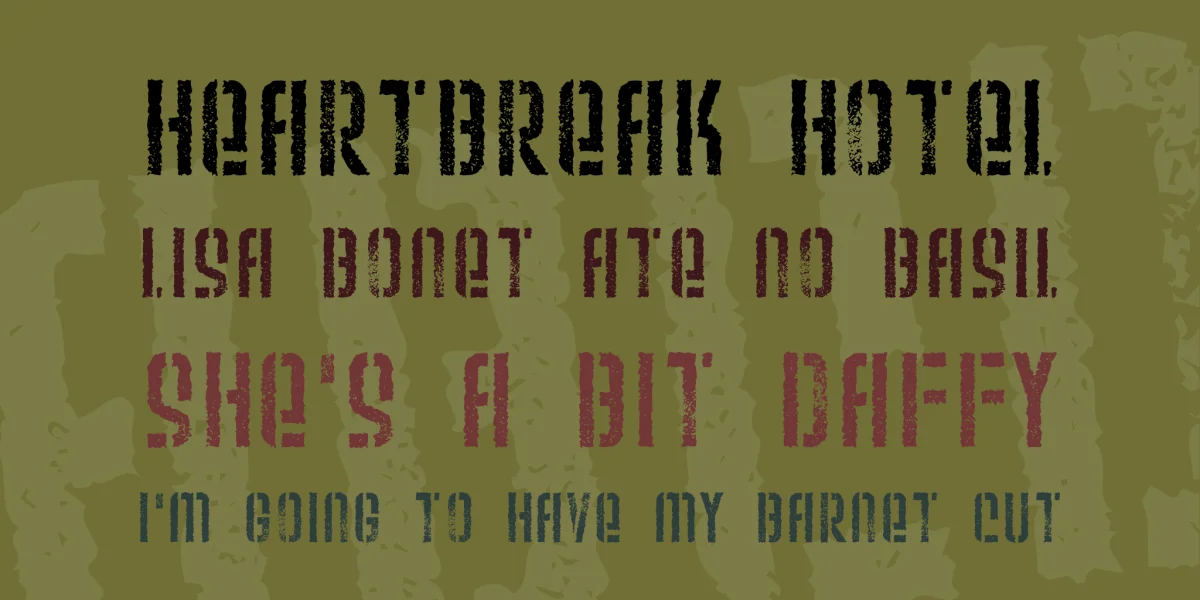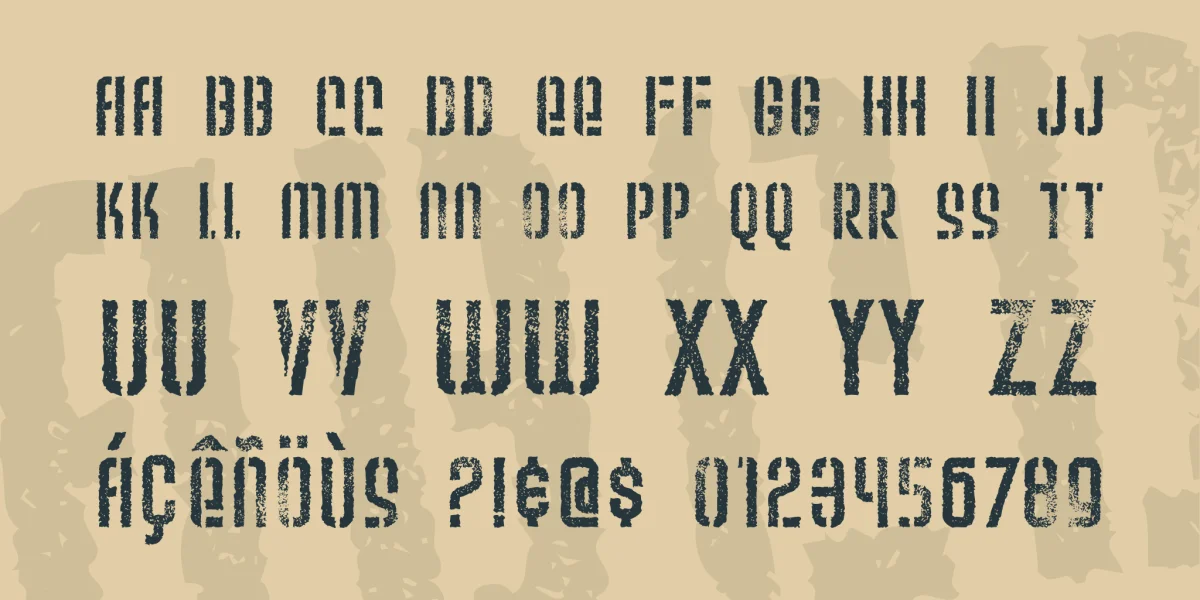
People like typefaces that look like they've been on something forever and just worn down to illegibility. I guess it gives it a little more stability behind the design. One way to do this is to design something and leave it out on the street for a couple weeks in a rough part of town. Yeah, you could go that route, or you could just download this remix of America's Favorite Font, Weltron. You wouldn't think making a font as hardcore as this that I would be sitting here jamming out to the Original Broadway Cast Recording of the musical Annie, but guess what?